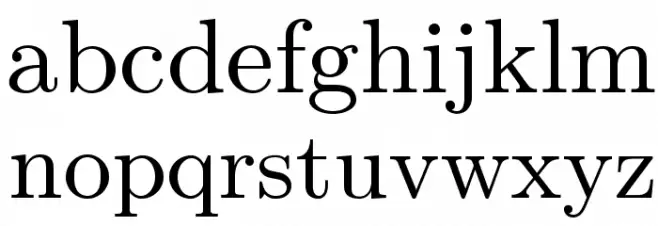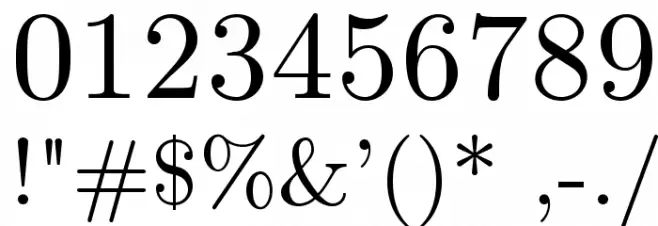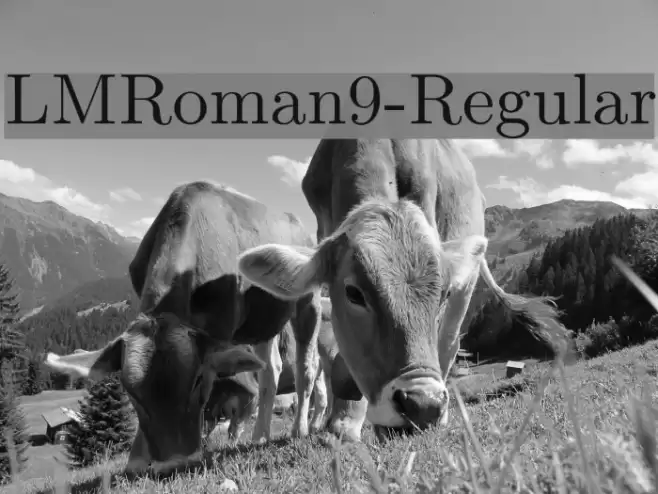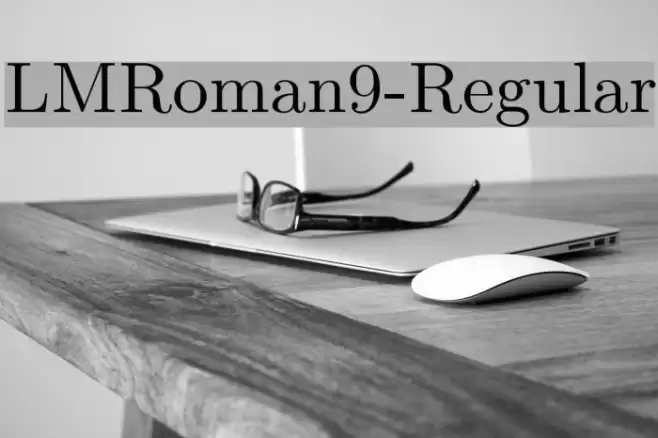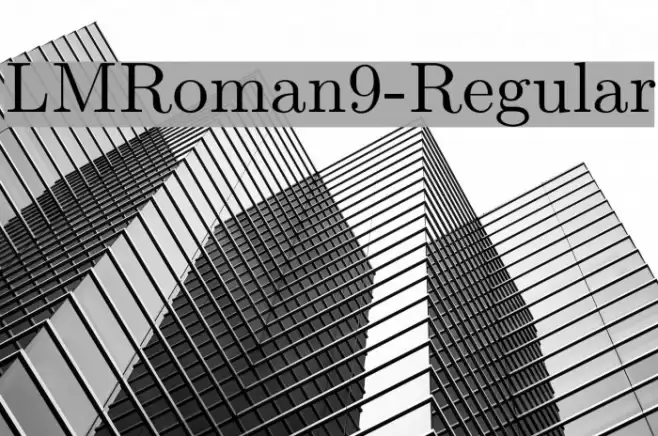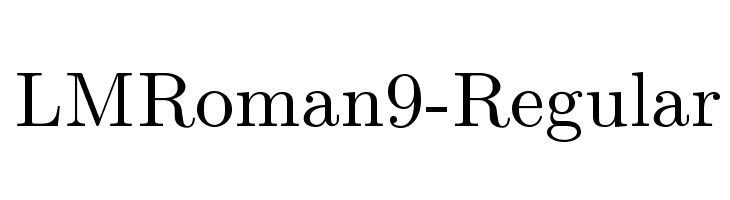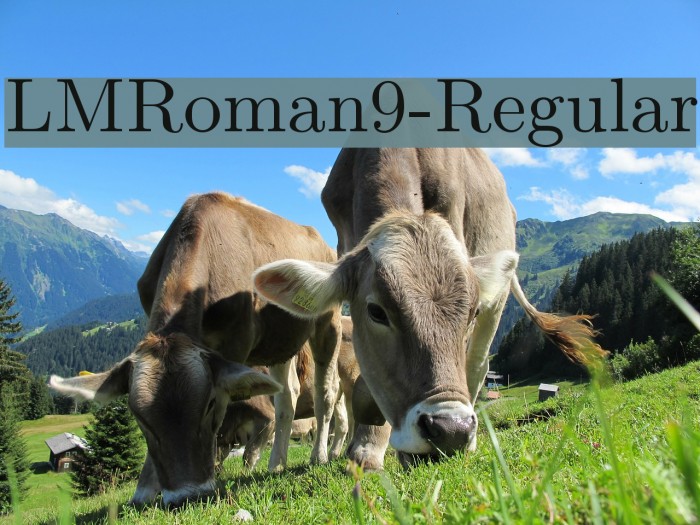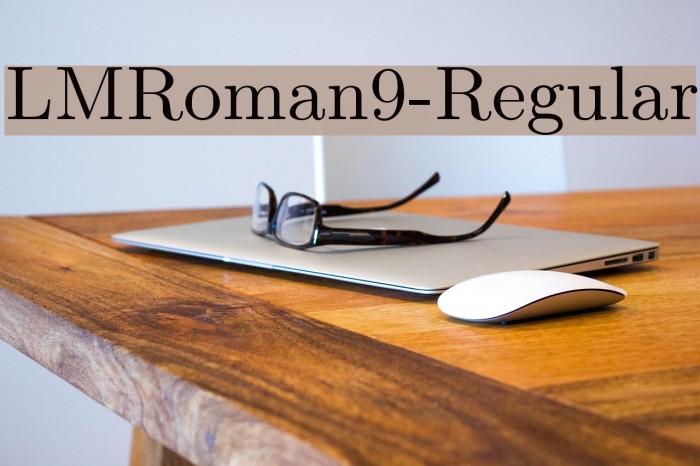
LMRoman9-Regular
This font exhibits a classic serif style with elegant and refined strokes. The characters are well-proportioned, featuring distinct serifs that enhance readability and lend a traditional feel. The uppercase letters are bold and commanding, while the lowercase letters maintain a balanced and harmonious appearance. Numerals are clear and consistent, making them suitable for both text and numerical data. The special characters are crafted with precision, ensuring they integrate seamlessly with the rest of the typeface. Overall, this font exudes a timeless quality, making it versatile for various design applications.
A classic serif font with elegant strokes and balanced proportions.
- Proposed Projects: Ideal for book typesetting, formal invitations, academic publications, and corporate branding.
- Category: Serif
- Overall Style: Classic
- Use Case: Body text, Headlines, Print media